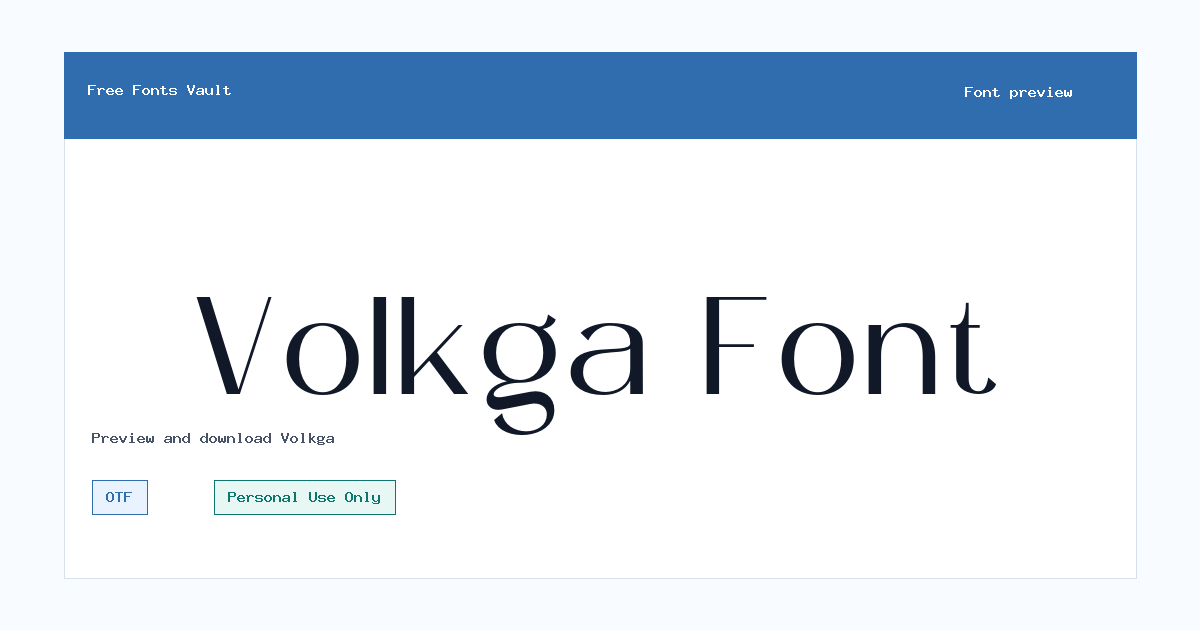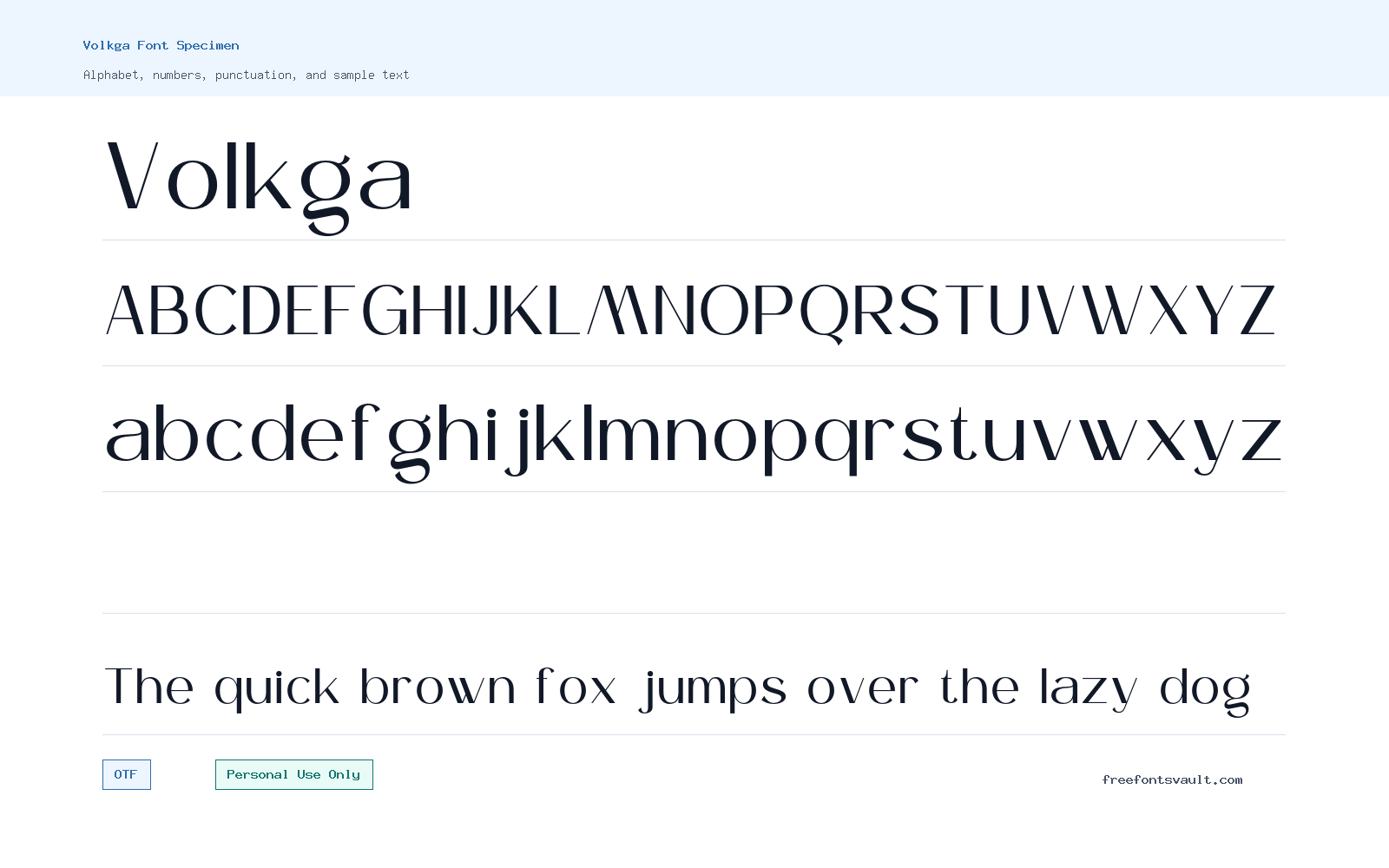
Volkga
Volkga font preview showing the family name
Volkga Font
Volkga font specimen showing alphabet, numbers, and sample text
Volkga font.
Volkga is a sans serif font with a demo OTF file for personal-use projects. It is a good choice to test when you need clean lettering for short display text, branding drafts, posters, social graphics, or title ideas.
About Volkga Font
Volkga has a simple sans serif structure, so it is best approached as a clean display and headline option rather than a long-reading text face. The available file is a regular style with normal weight, which makes it easy to test in many preview situations before downloading. Try it with uppercase words, short names, page headers, and compact phrases to see whether the spacing and letter shapes fit your design. Since only one demo variant is listed, you should not expect a full family with bold, italic, or multiple weights unless you obtain more styles from the original source.
Use the preview box to check the exact words you plan to design with. Some fonts look strong in a title but feel less comfortable in smaller sizes, so test Volkga at the size you actually need. For logos, packaging mockups, thumbnails, event graphics, and personal posters, compare it with a quieter body font so the main text stays readable. If you are designing anything for a client, product, advertisement, monetized channel, or business identity, review the license first and contact the rights holder or seller if commercial permission is needed.
• Sans serif styling suited to short titles, display text, and clean layout experiments.
• Personal posters, social media graphics, mood boards, and title mockups.
• Logo drafts, branding concepts, thumbnails, and short headline previews.
Is Volkga good for body text?
Use it carefully for body text. It is safer to test Volkga for short headings, names, and display lines, then pair it with a more neutral font for longer reading.